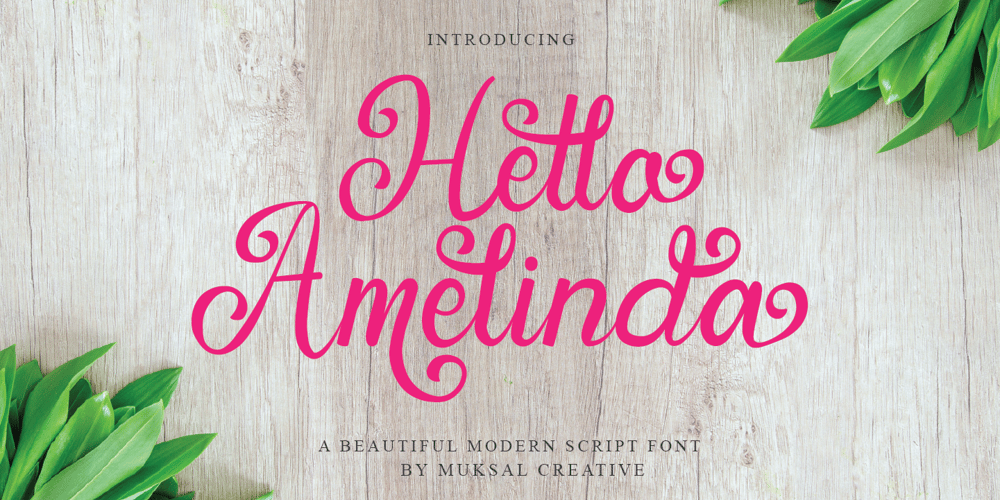
Hello Amelinda
Hello Amelinda font
Hello Amelinda Font Family was designed by Muksalmina and published by Muksal Creatives. Hello Amelinda contains 1 styles and family package options. Hello Amelinda is an incredibly unique handwritten font. Masterfully designed to become a true favorite,Hello Amelinda feels incredibly elegant and flowing. It looks stunning on wedding invitations, thank you cards, quotes, greeting cards, logos, business cards and every other design which needs a handwritten touch. It features a varying baseline, smooth lines, gorgeous glyphs and stunning alternates.